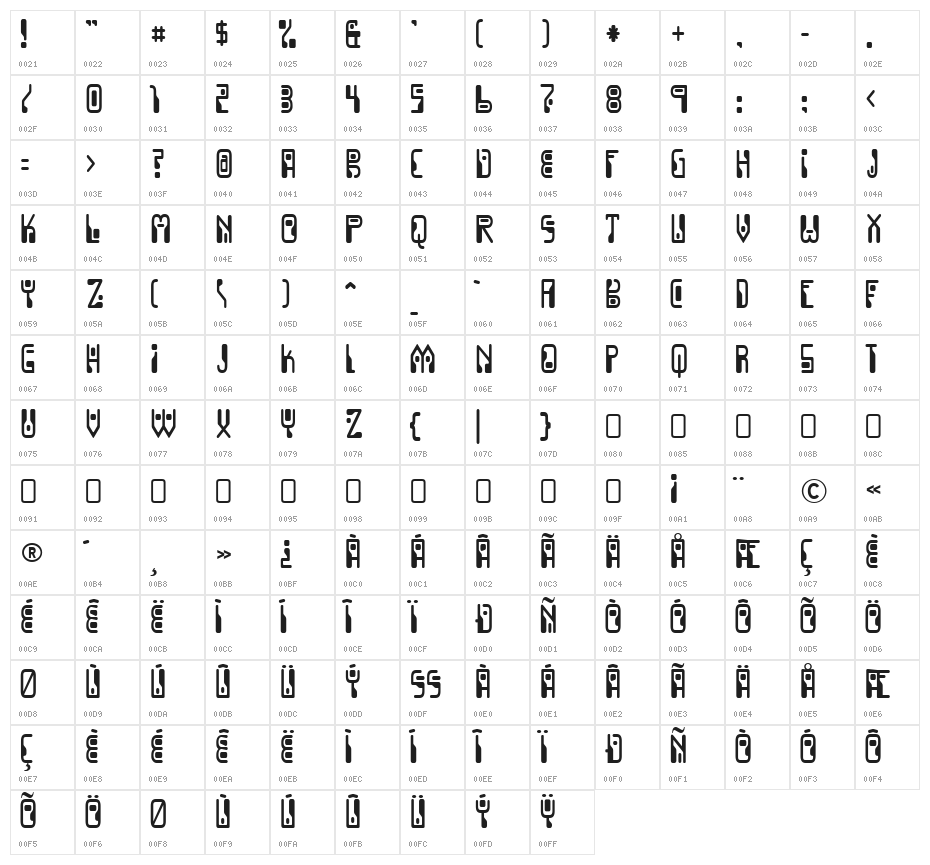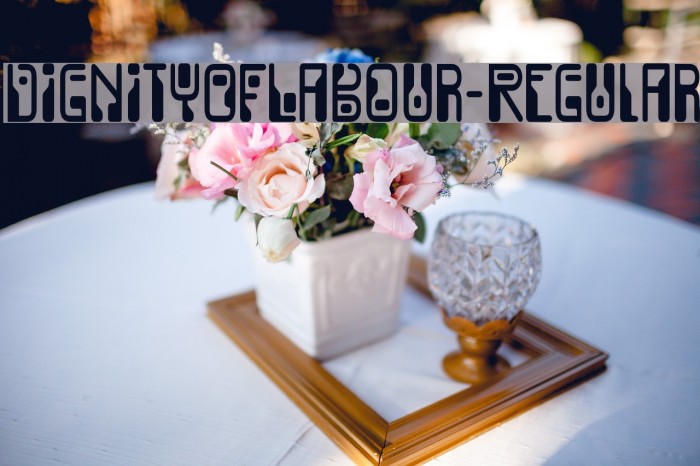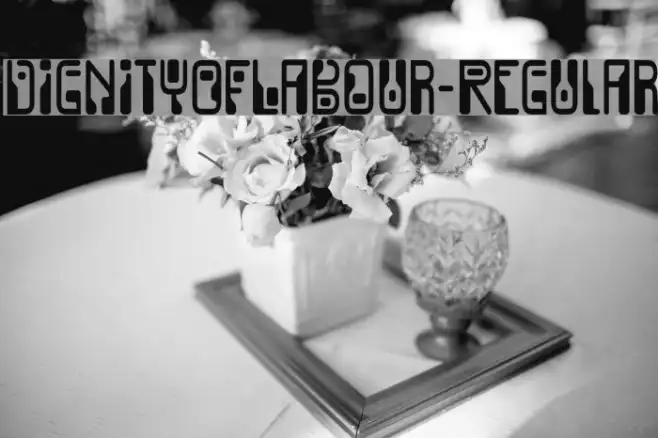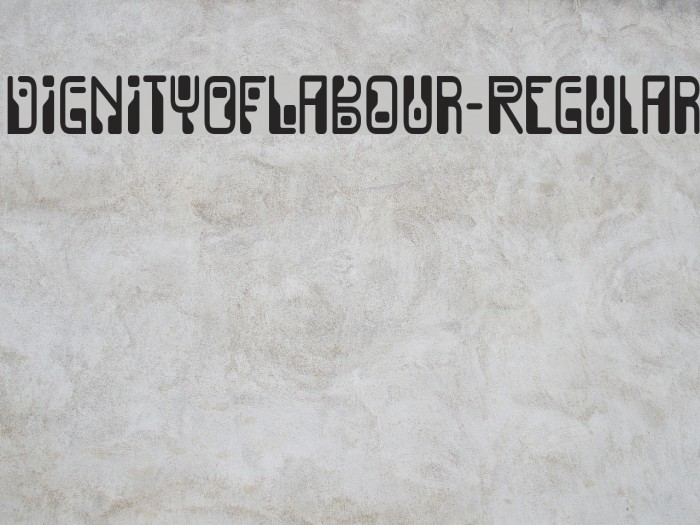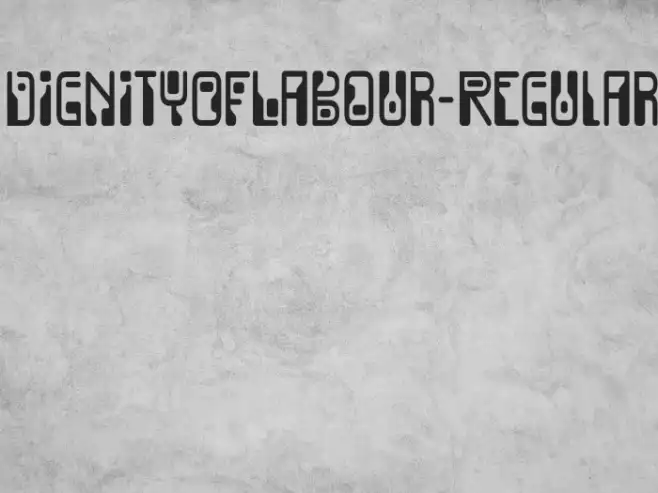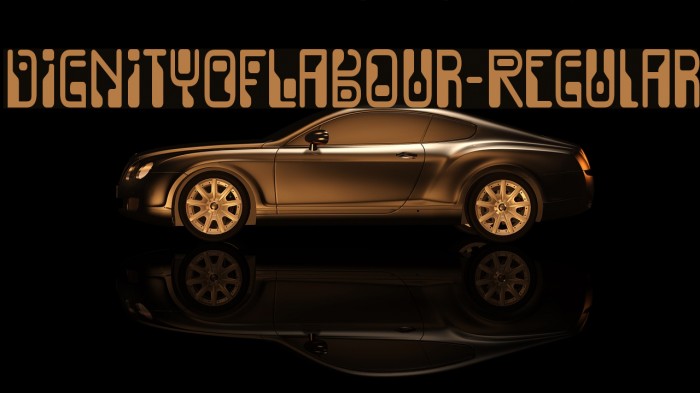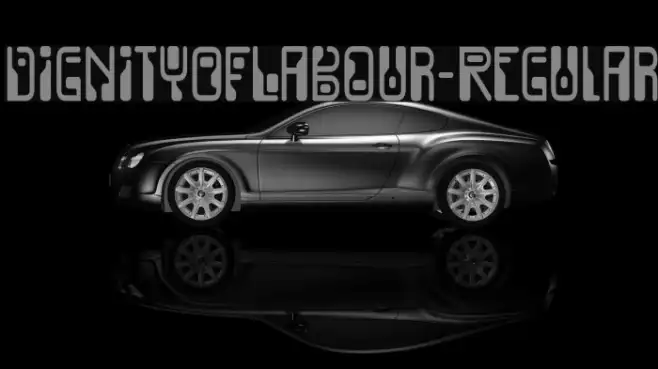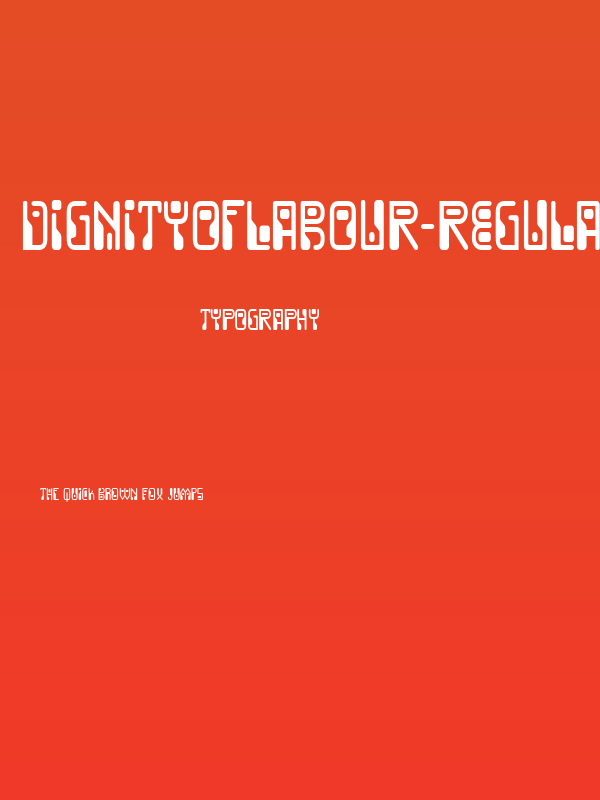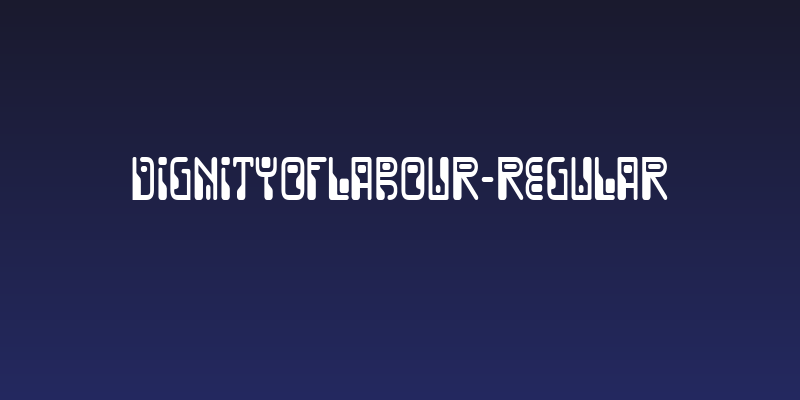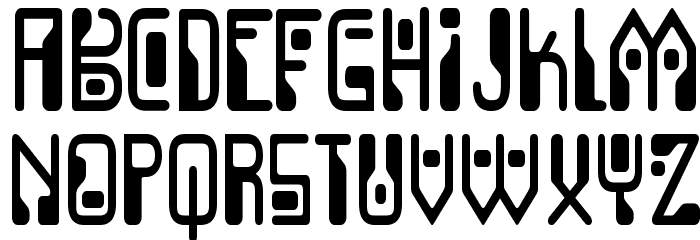
DignityOfLabour-Regular Font
DignityOfLabour-Regular Description
This font exhibits a bold and modern design with a unique, industrial aesthetic. The characters are constructed with thick, block-like shapes that create a sense of strength and solidity. The uppercase and lowercase letters maintain a consistent style, with rounded edges and geometric forms that give the font a futuristic feel. The numerals and special characters follow the same design principles, ensuring uniformity across all glyphs. The font's distinct appearance makes it ideal for projects that require a strong visual impact.